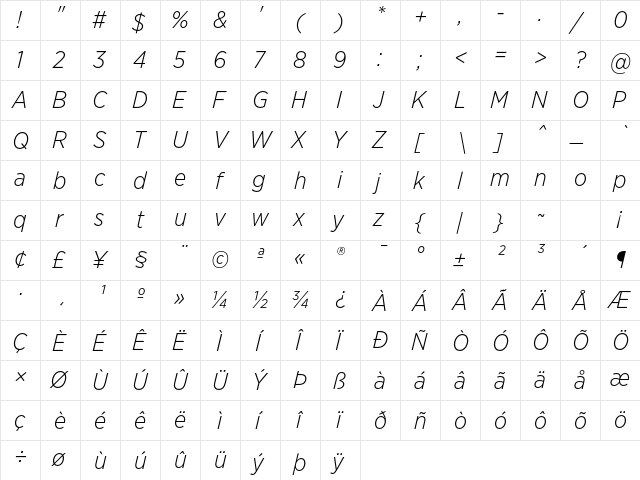
Gotham Narrow Light Italic Font Preview
| Foundry | Hoefler & Frere-Jones |
| Designer | Hoefler & Frere-Jones |
Design Context for Gotham Narrow Typeface
Gotham Narrow takes a measured approach to typography — its balanced proportions and neutral character make it a reliable workhorse for both digital and print work. The dynamic lean of this cut emphasises speed and emphasis in any layout. Its slender proportions lend an understated elegance to any composition. The condensed width makes it efficient for tight spaces without sacrificing legibility.
Pro Tip: Use Gotham Narrow for emphasis, pull quotes, and subheadings where its slanted energy can add rhythm to the layout.